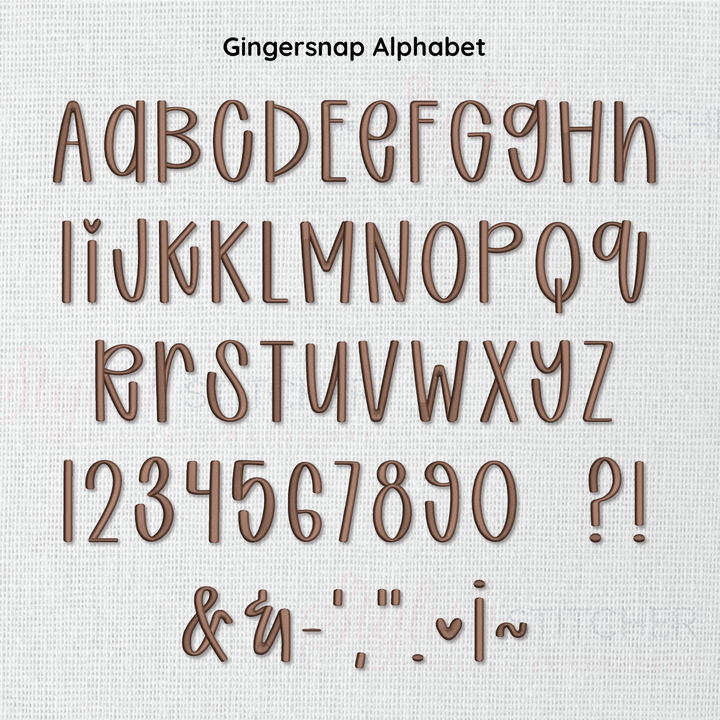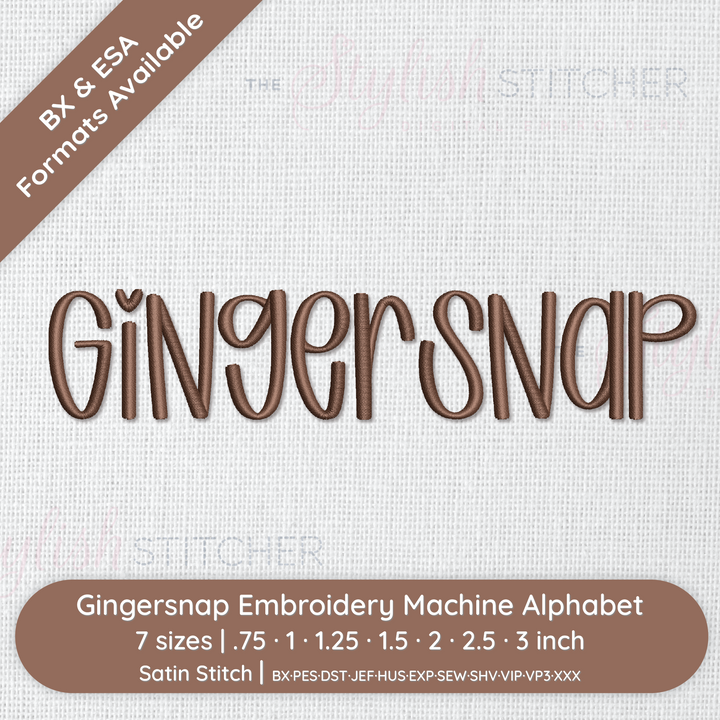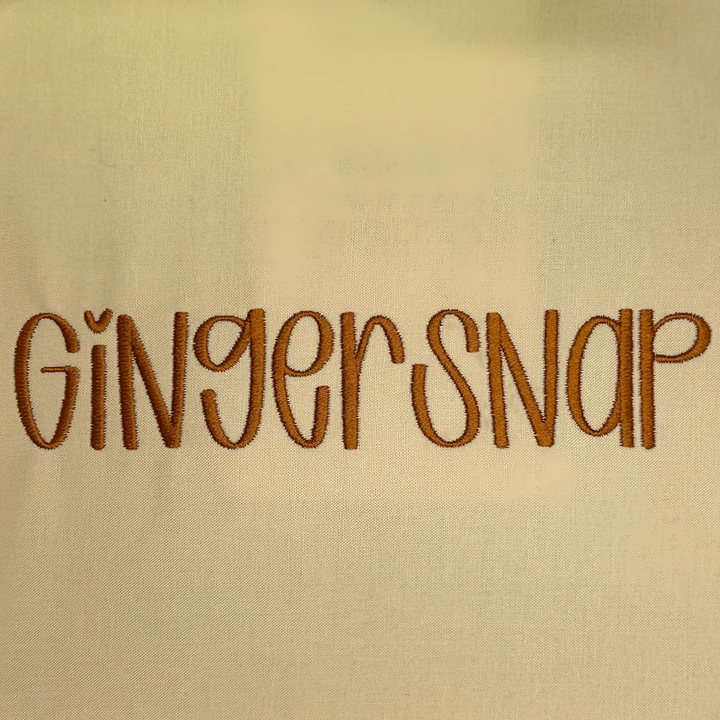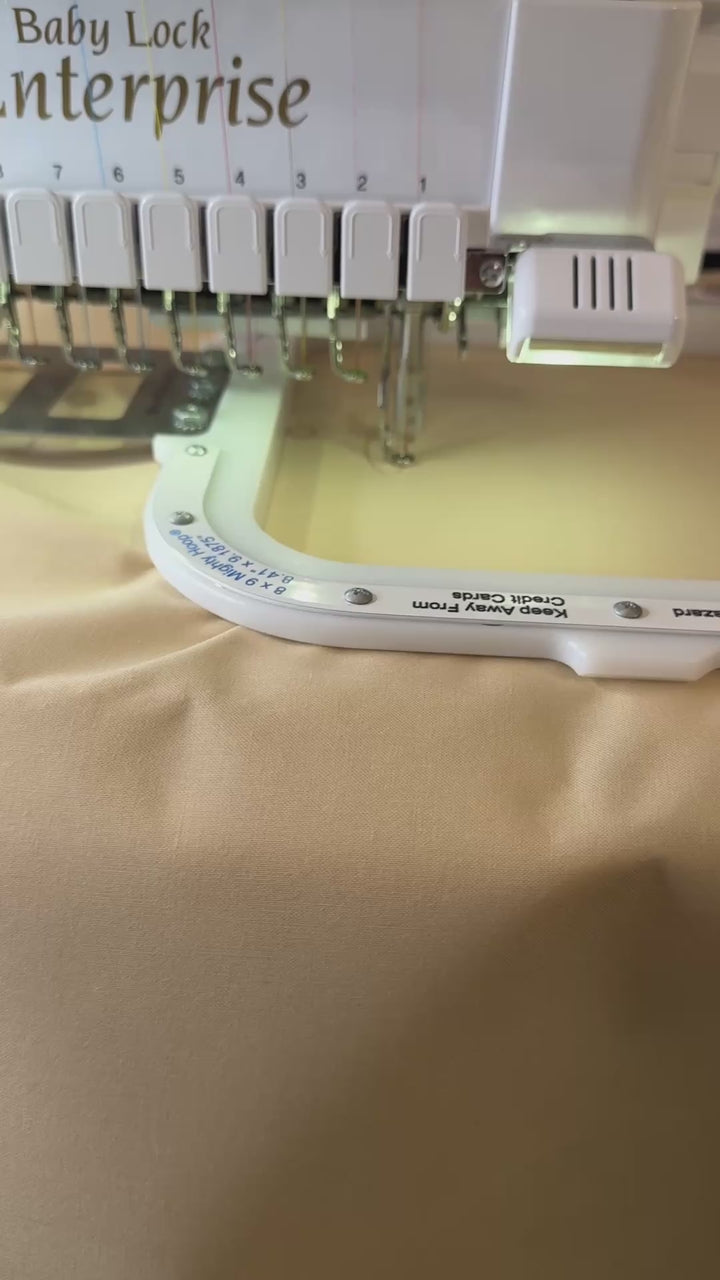
'Gingersnap' text on a textured background
Gingersnap Alphabet set on a white background
Video showcasing stitching of gingersnap embroidery font
Gingersnap Digital Embroidery Font
Included: Uppercase Letters, Numbers, Punctuation
Gingersnap is a tall, sweet and slightly spicy embroidery font ready to warm up your hoop. Each letter is hand‑digitized with a consistent, steady stitch—no auto‑magic here—so every character has a personality all its own. The slender strokes and playful curls keep it legible yet stylish, and little hearts dotting the i’s add a mischievous wink. With uppercase letters, numbers, punctuation and fun symbols, Gingersnap is perfect for holiday stockings, kitchen towels, aprons and everyday projects that need a dash of whimsy. Zero calories, all the charm—grab your machine and sprinkle some sweetness across your creations.